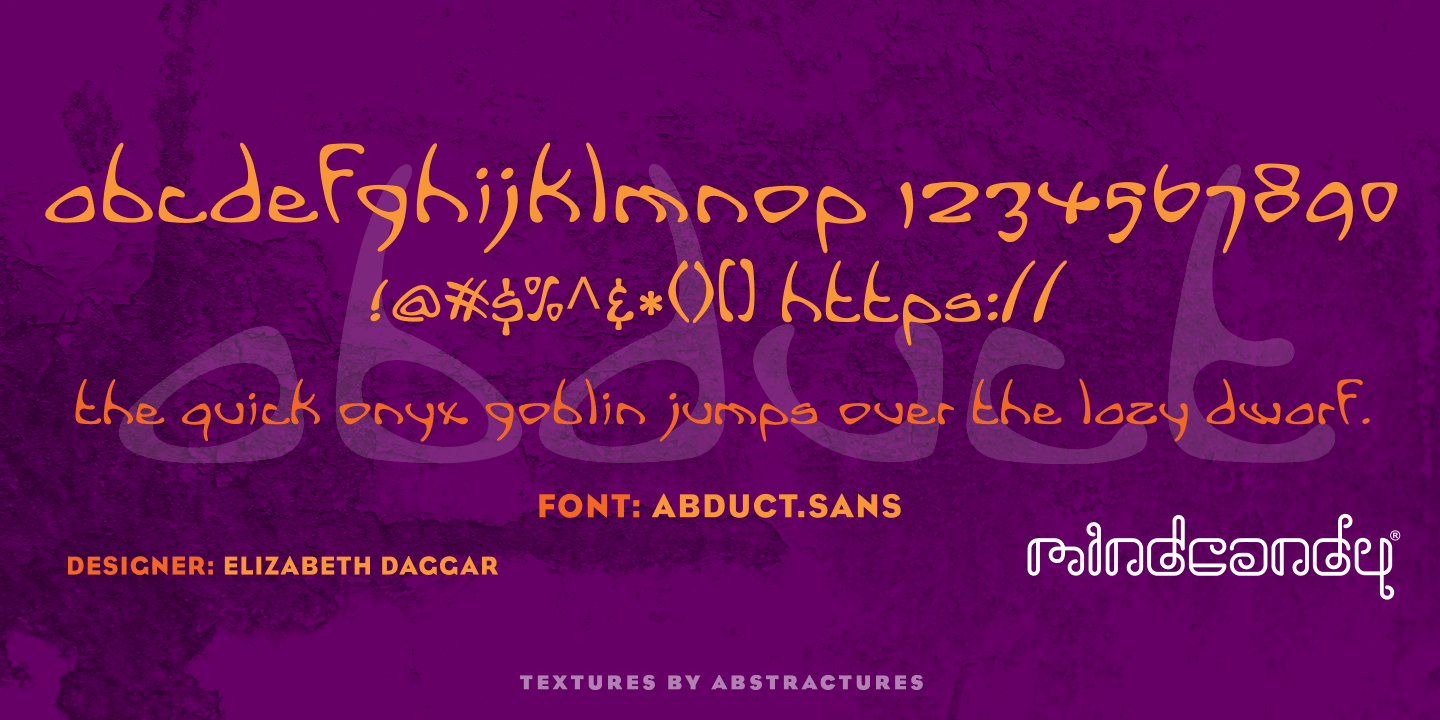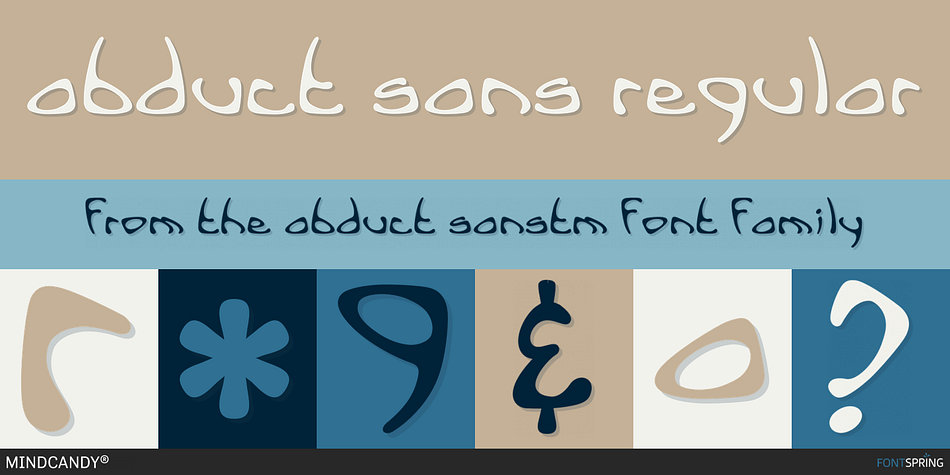
Abduct Sans Regular
Designed by Elizabeth Daggar, Abduct Sans™ is a hand display font published by MINDCANDY.
Abduct.Sans™ is a beautiful, all lower-case font with a very unique character set, based on a design utilizing triangular shapes with both “thicks and thins”. A truly “out-of-this-world” typeface. © 1998. All Rights Reserved. Designed by Elizabeth Daggar. Distributed with permission by Mindcandy® on Fontspring.com.